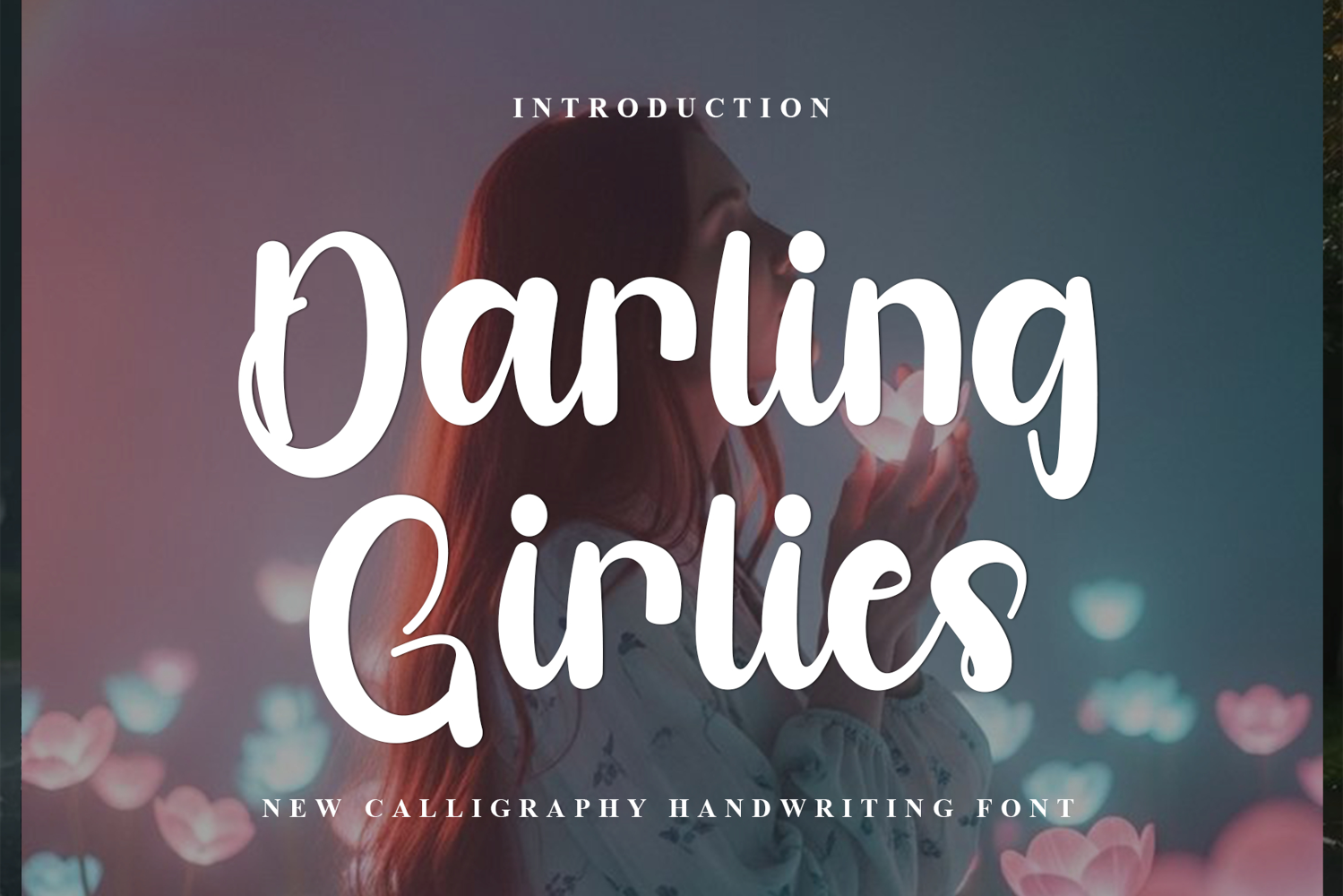
Darling Girlies
Darling Girlies is a beautiful and eye-catching font designed with a soft, unique touch. Its distinctive strokes give it a special character, making it meaningful and versatile for future use. With various characters, it’s perfect for design projects, crafts, and other creative works.